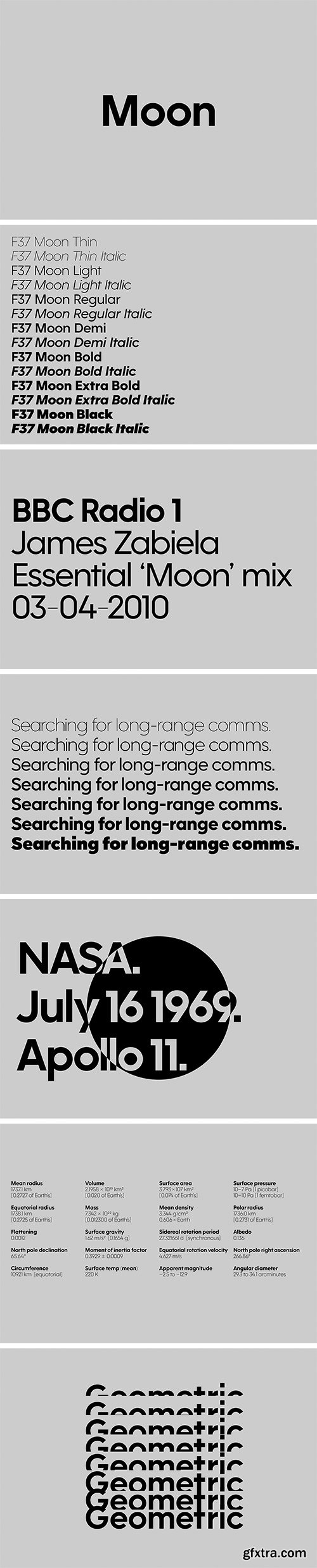
F37 Moon Font Family
F37 Moon is a geometric sans serif font family featuring seven weights with italics. Inspired by classic sans-serifs such as Avant Garde and Futura, it has a big x-height for an ultra-clean, ultra-minimalist look. Really versatile and contemporary, the short ascenders and descenders create a compact and bold look. Great in almost any context, F37 Moon is highly legible as body copy, but looks best as a display font in larger sizes. Rounded punctuation alternates are found within the OpenType features.